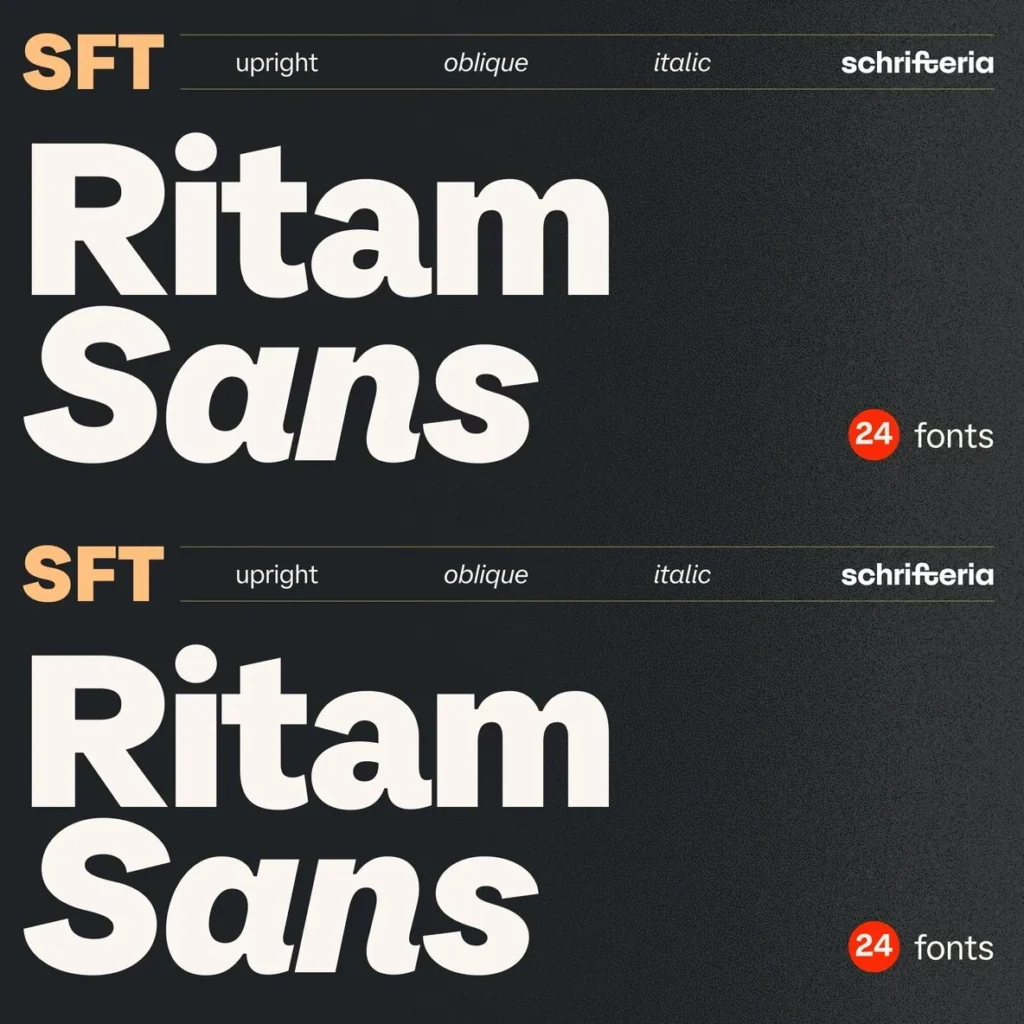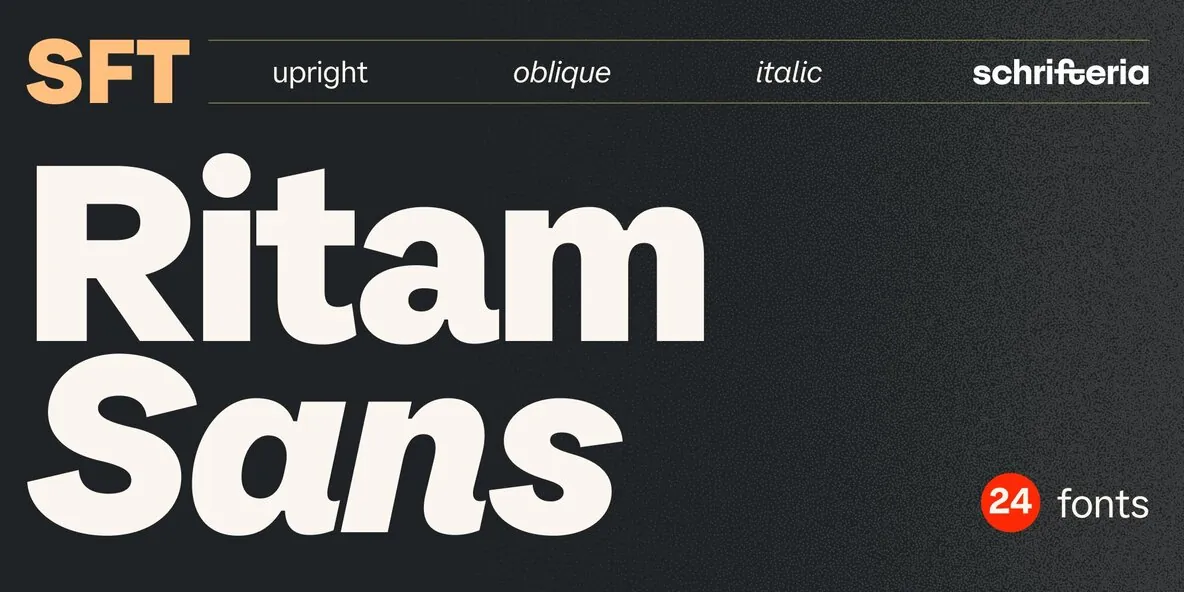
SFT Ritam Sans Font
SFT Ritam Sans — Belgrade Rhythm, Set in Type
SFT Ritam Sans is a neo-grotesque typeface with a lively, organic character inspired by the vibrant spirit of Belgrade. It brings a fresh twist to classic grotesques, with subtle humanist touches that add warmth and personality to each weight. Use it for editorial design, branding, and advertising when you need clarity with an expressive edge. It moves comfortably from large display sizes to small body text, so it works equally well in headlines, subheads, and long passages where readability and detail matter.
Alongside Oblique styles, SFT Ritam Sans includes True Italics. They are carefully drawn to add a more dynamic, authentic slant than standard obliques, giving the family a distinctive voice in layouts that call for both elegance and impact. Clean lines, fluid curves, and open shapes create a sense of movement and energy while staying highly legible. A broad character set with multilingual support makes it a dependable choice for global branding projects and editorial work.